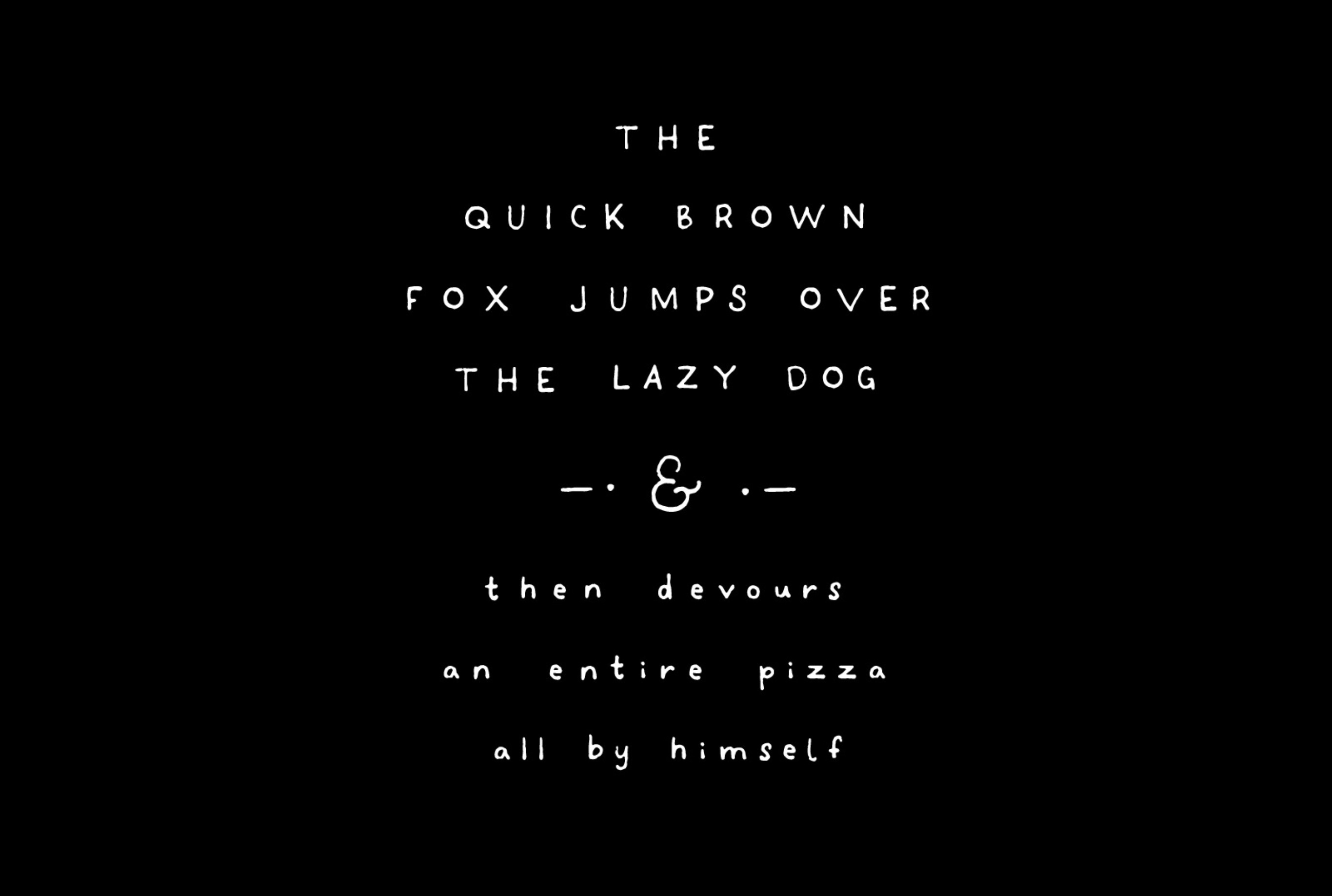
Handyman Font
Sans serif font: great for filler words and small type to support hand-lettered pieces.
- multiple alternates for ampersands and select capitals